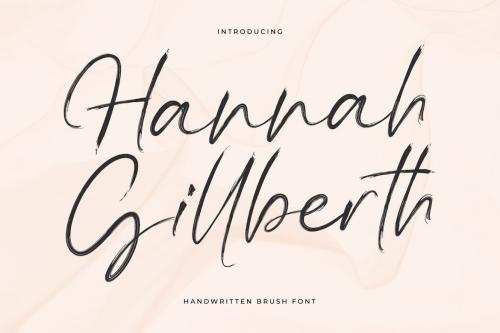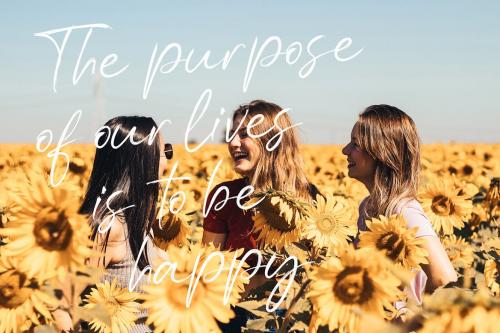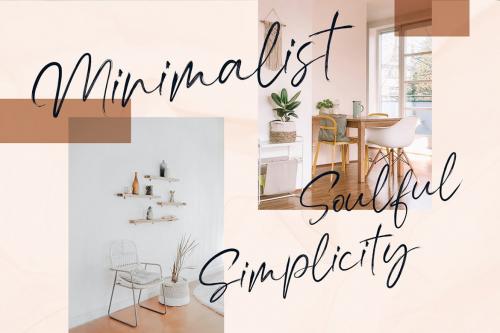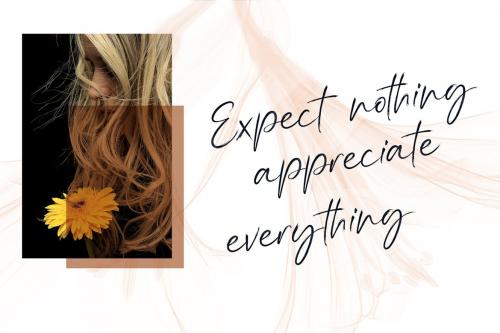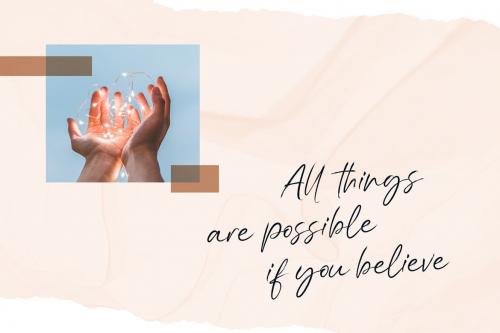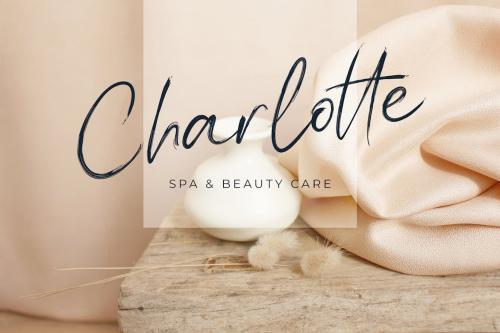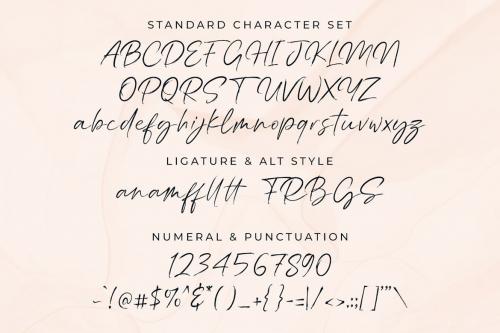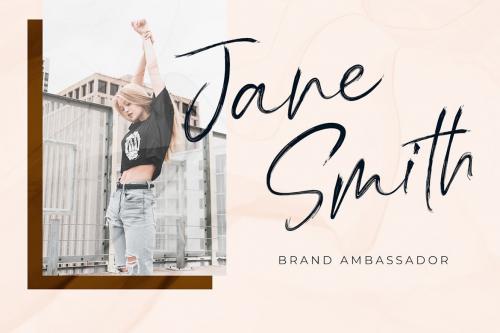
Hannah Gillberth Handwritten Brush Font
Hannah Gillberth is a lovely and casual handwritten font. It is the best choice for creating eye catching logos, branding and quotes. Every letter has a unique and beautiful touch, which will make your design come alive! Give your designs an authentic handcrafted feel. "Hannah Gillberth" is perfectly suited to signature, stationery, logo, typography quotes, magazine or book cover, website header, clothing, branding, packaging design and more.
Hannah Gillberth is a lovely and casual handwritten font. It is the best choice for creating eye catching logos, branding and quotes. Every letter has a unique and beautiful touch, which will make your design come alive!
Give your designs an authentic handcrafted feel. "Hannah Gillberth" is perfectly suited to signature, stationery, logo, typography quotes, magazine or book cover, website header, clothing, branding, packaging design and more.